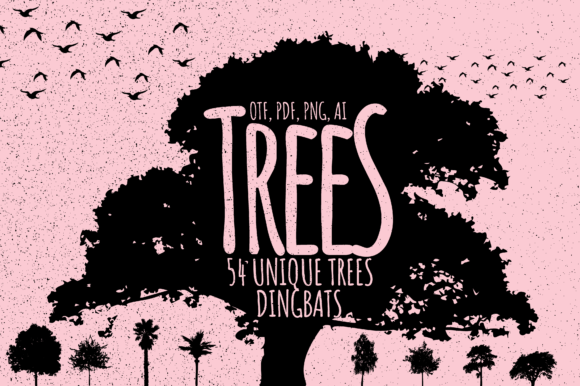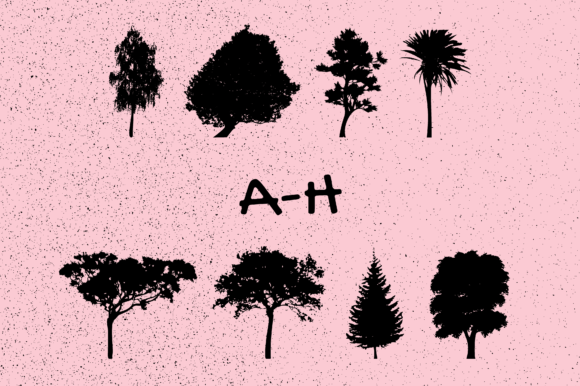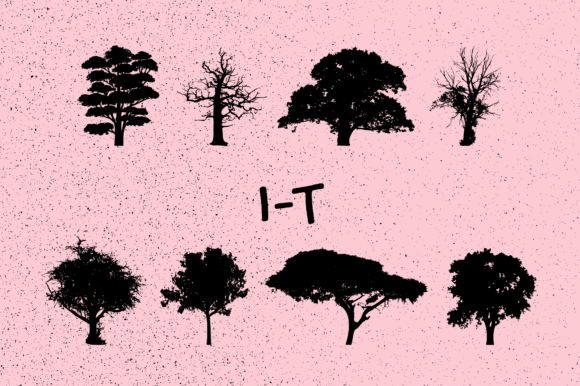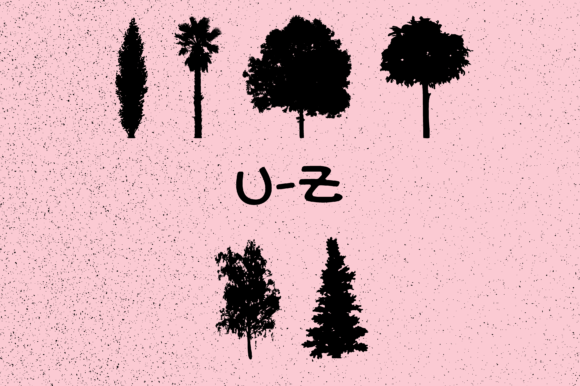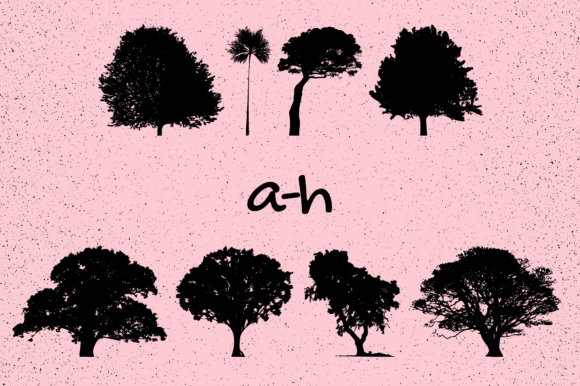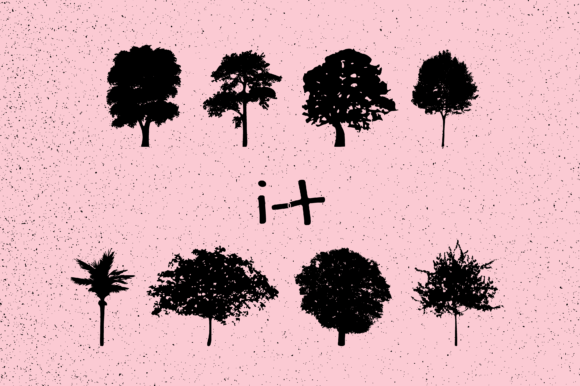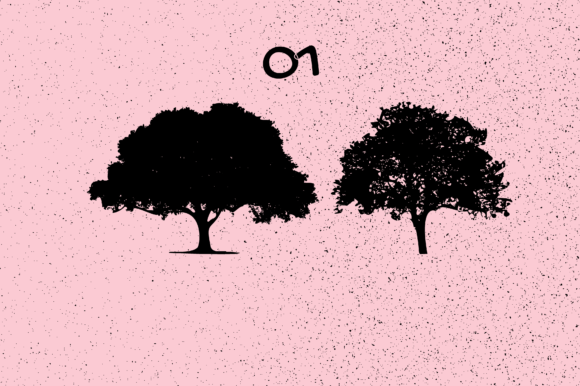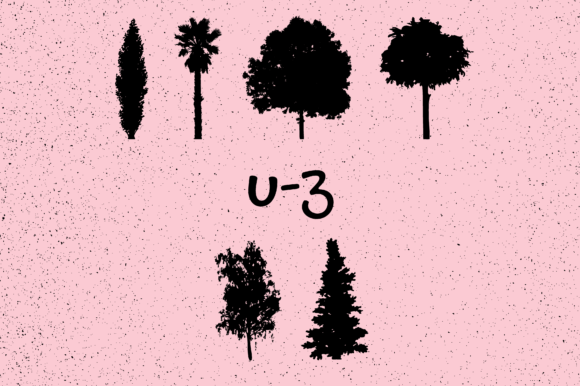
Trees Font
About Trees Font
Trees is a captivating and versatile dingbats font that offers a range of 54 unique tree glyphs. With this font, you can effortlessly incorporate the beauty of nature into your designs, making them visually appealing and impactful.
Whether you’re working on t-shirt designs, sportswear branding, logos, advertisements, or clothing labels, Trees font provides you with a diverse collection of tree symbols to choose from. Each glyph represents a different tree species, allowing you to add a touch of natural elegance and symbolism to your creations.
Imagine using Trees font to design a t-shirt for an environmental campaign. You can showcase the beauty and diversity of trees by incorporating different tree glyphs into the artwork, creating a visually striking design that promotes the importance of preserving nature.
The versatility of Trees font extends beyond t-shirts and sportswear. You can also utilize this font in logo designs for eco-friendly businesses, outdoor adventure brands, or any project that aims to connect with nature. By incorporating tree symbols from the font, you can instantly convey a sense of growth, strength, and sustainability.
Additionally, Trees font is well-suited for advertisements related to gardening, landscaping, or outdoor events. The tree glyphs can be used as decorative elements or icons to emphasize the natural and serene ambiance associated with these activities.
To access the tree glyphs in Trees font, simply type the corresponding capital letters, small letters, or numbers on your keyboard. Experiment with different sizes, colors, and arrangements to create visually appealing compositions that reflect the essence of nature.
In summary, Trees is a cool and versatile dingbats font that offers 54 unique tree symbols for your designs. Whether you’re working on t-shirts, sportswear, logos, advertisements, or clothing, this font allows you to incorporate the beauty and symbolism of trees effortlessly. So go ahead and explore the endless possibilities of Trees font to create captivating designs that celebrate nature.